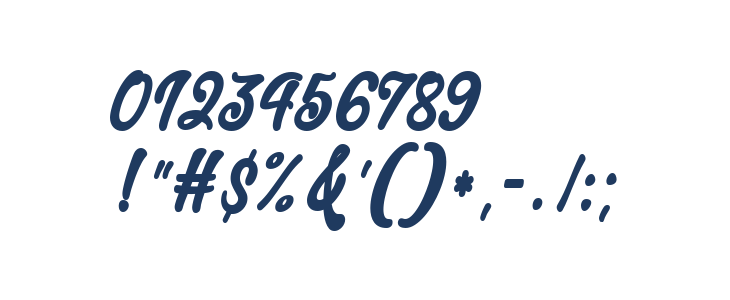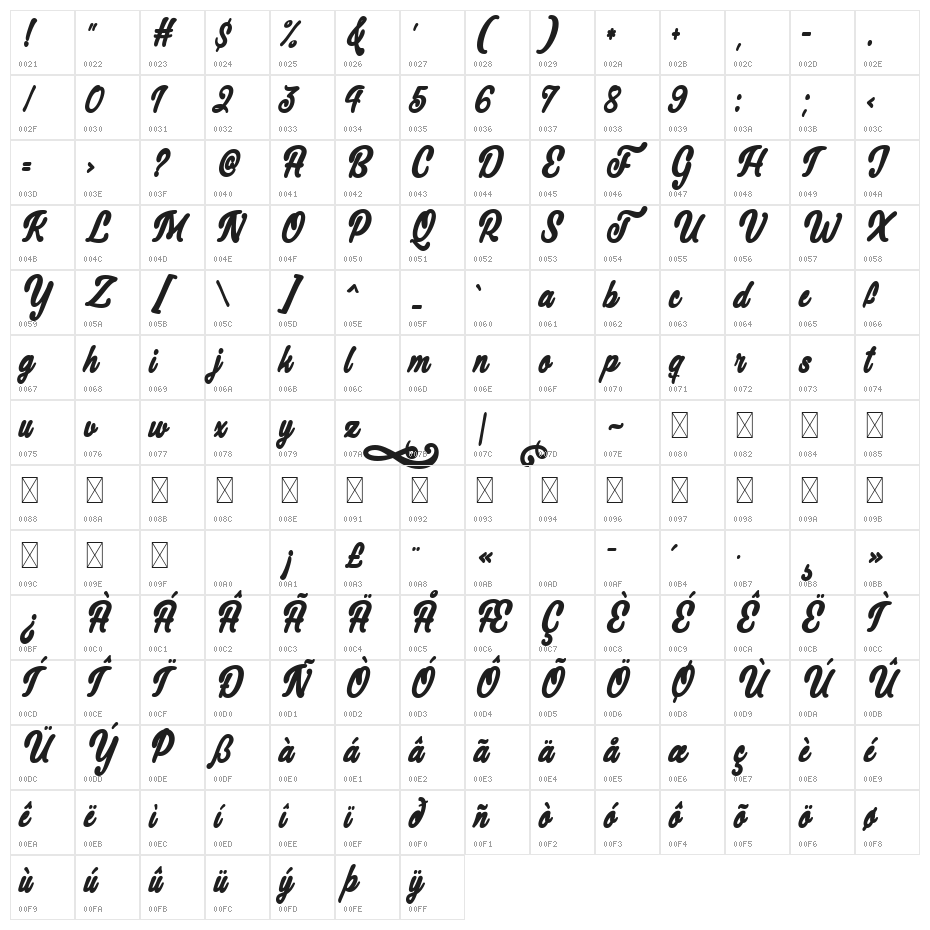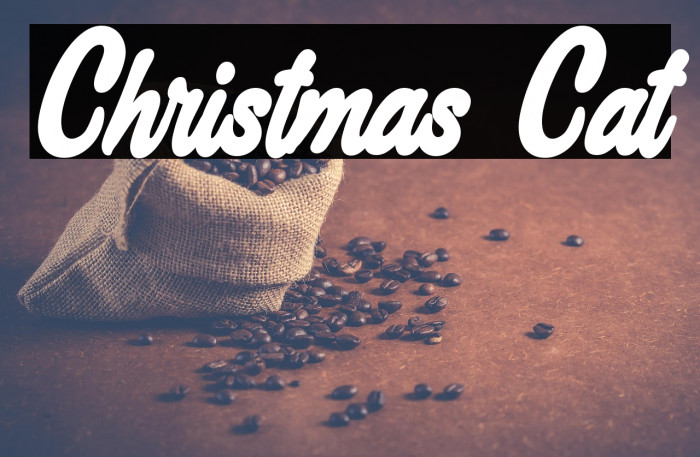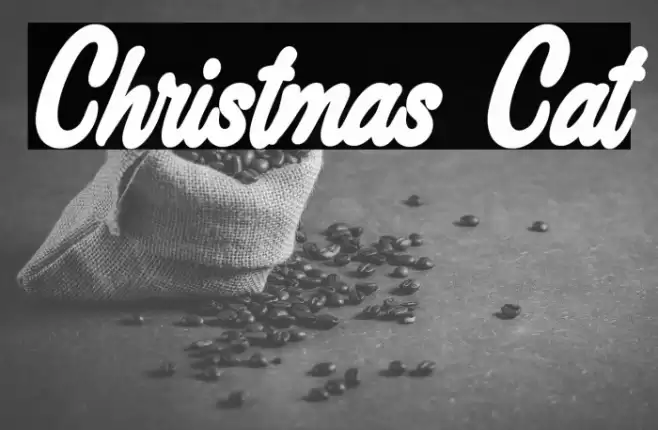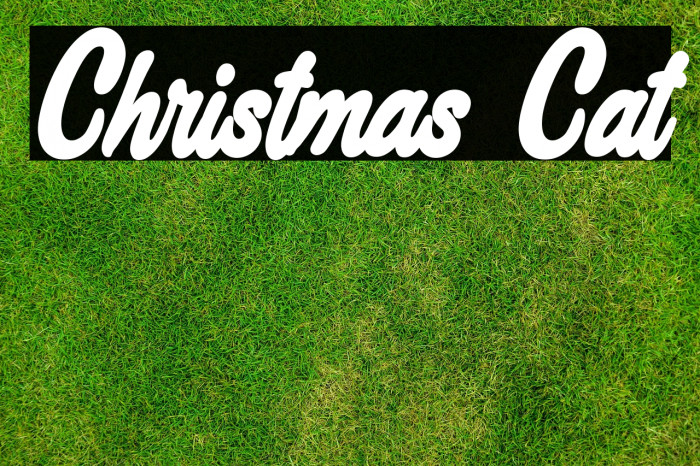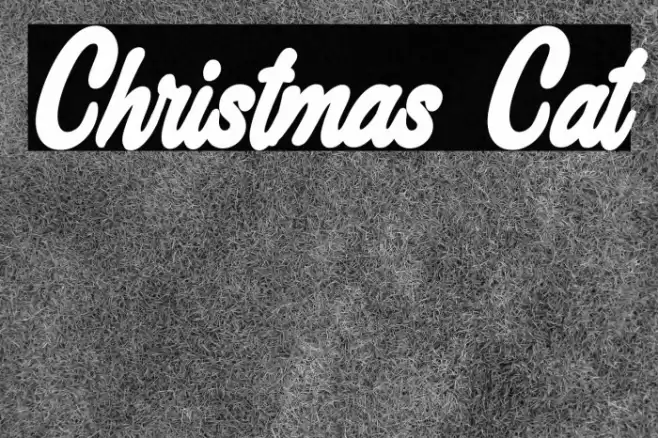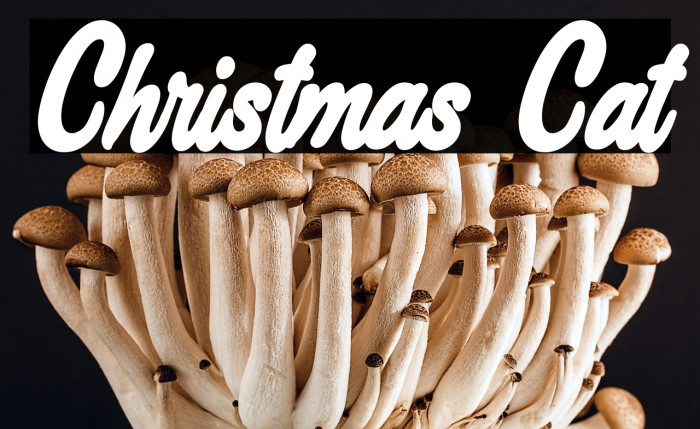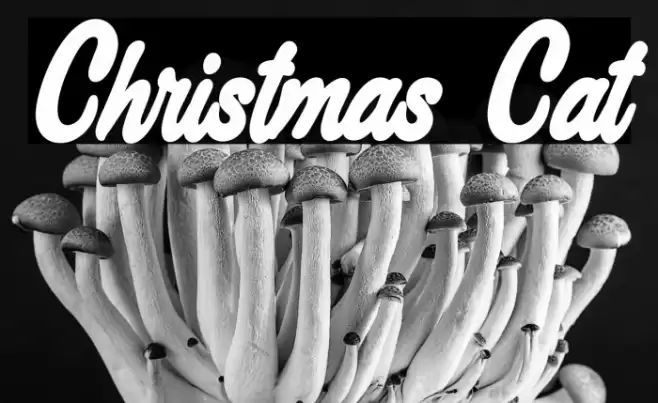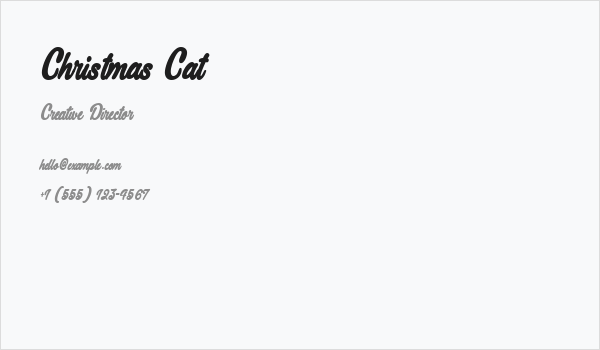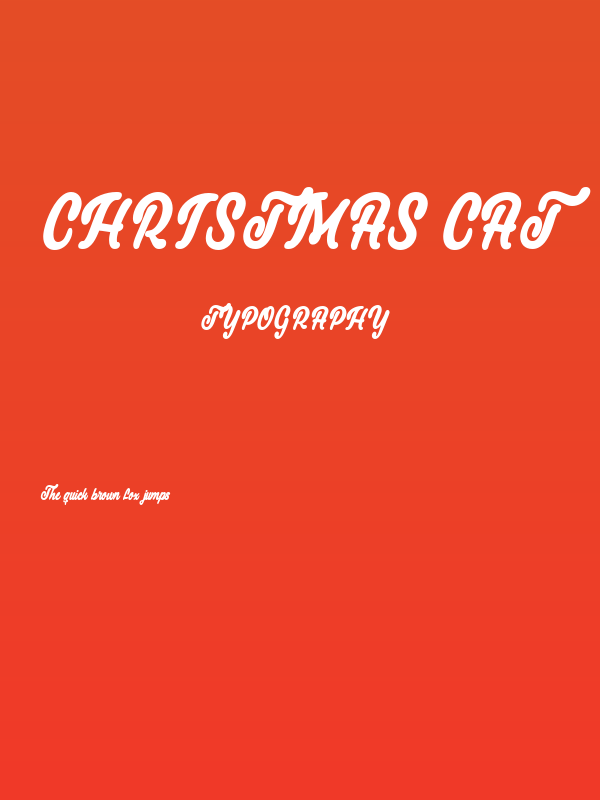
Christmas Cat Font
Christmas Cat Description
This font features a playful and festive script style, characterized by its bold and flowing letterforms. The uppercase and lowercase letters exhibit a consistent slant, adding a dynamic and lively feel. The strokes are thick and rounded, contributing to a sense of warmth and friendliness. The numbers and special characters maintain the same whimsical style, ensuring uniformity across all glyphs. This font is ideal for creating a joyful and celebratory atmosphere, making it perfect for holiday-themed designs.
Use CaseHeadlines, Logos, Decorative text
Proposed ProjectsIdeal for holiday cards, festive invitations, seasonal branding, and decorative posters.